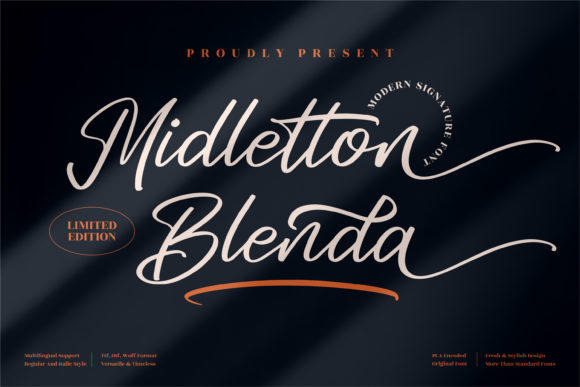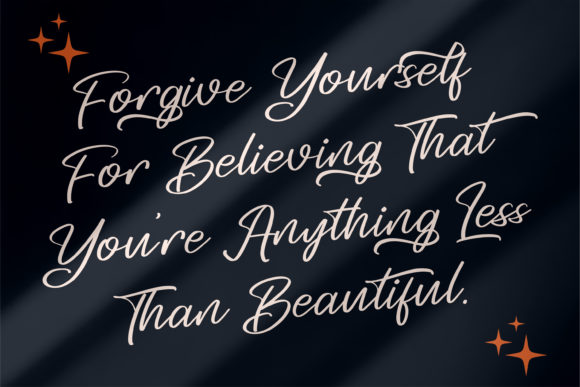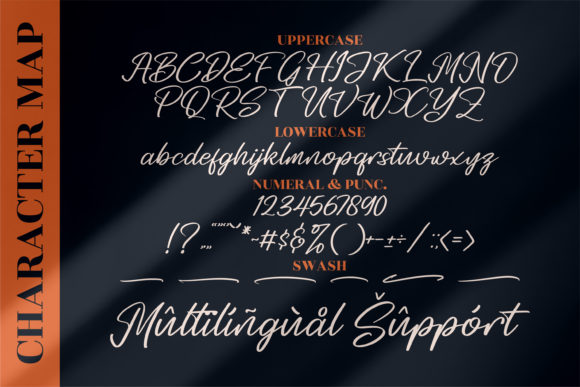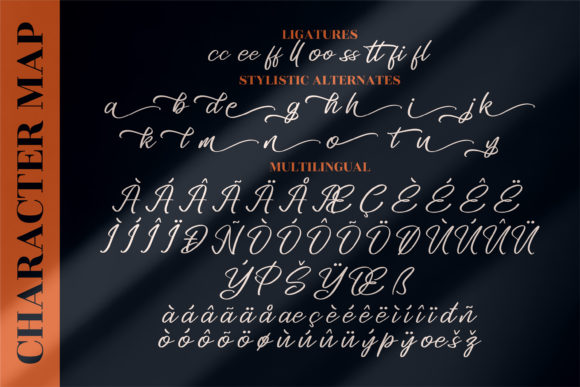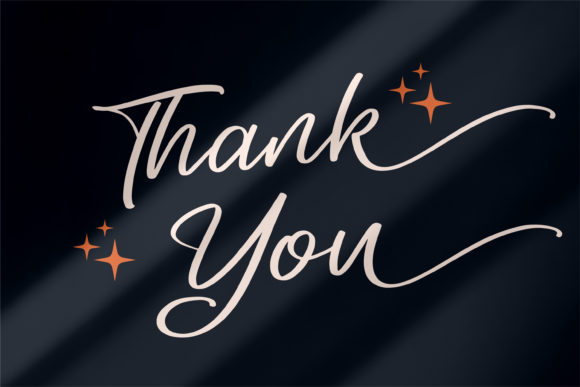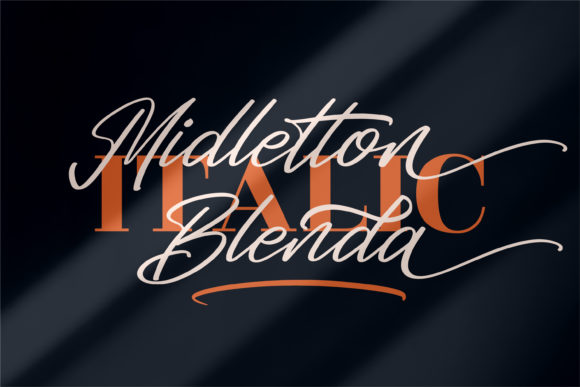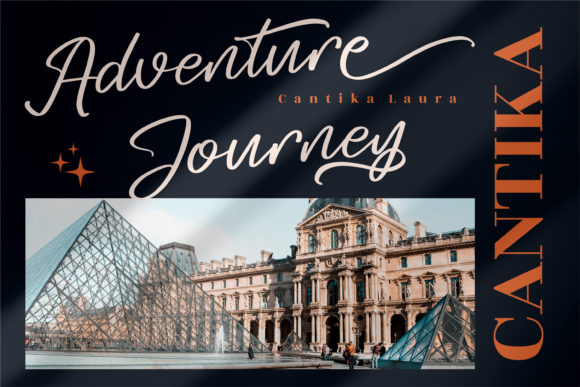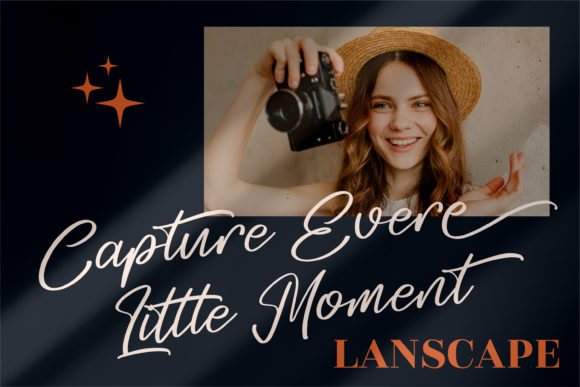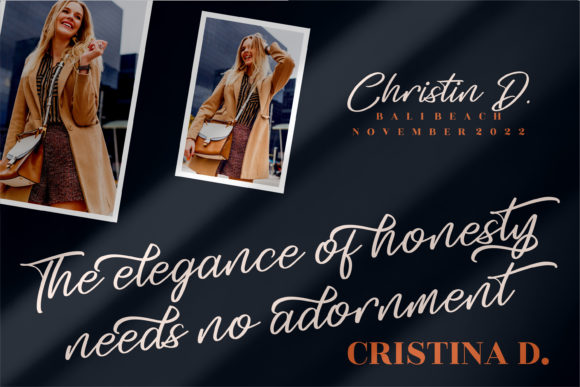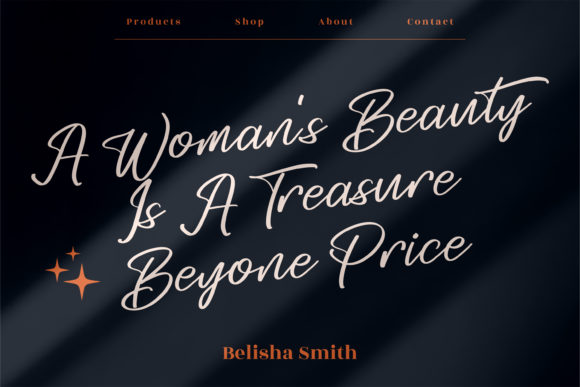
Midletton Blenda Font
About Midletton Blenda Font
Midletton Blenda is a chic, refined script font that emanates sophistication and elegance. Its stylish alternates and ligatures make this font the perfect match for any project. This font is PUA encoded which means you can access all of the amazing glyphs and ligatures with ease!